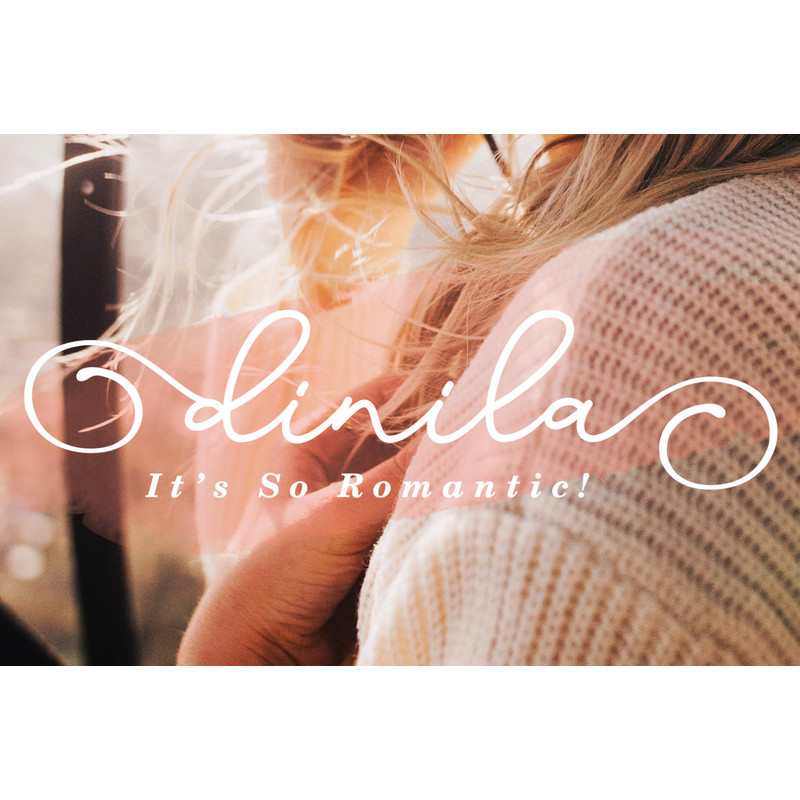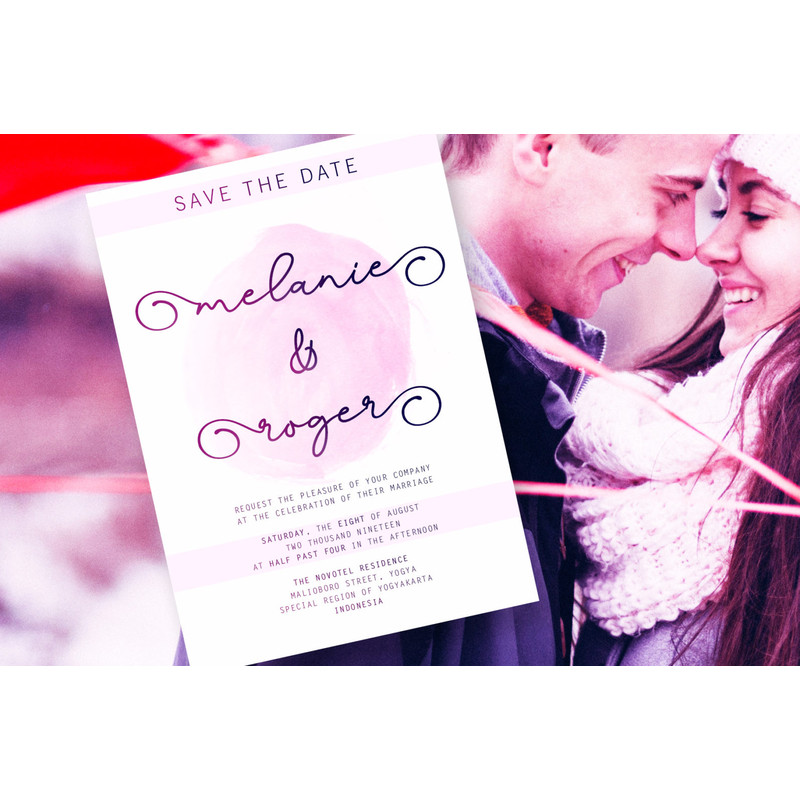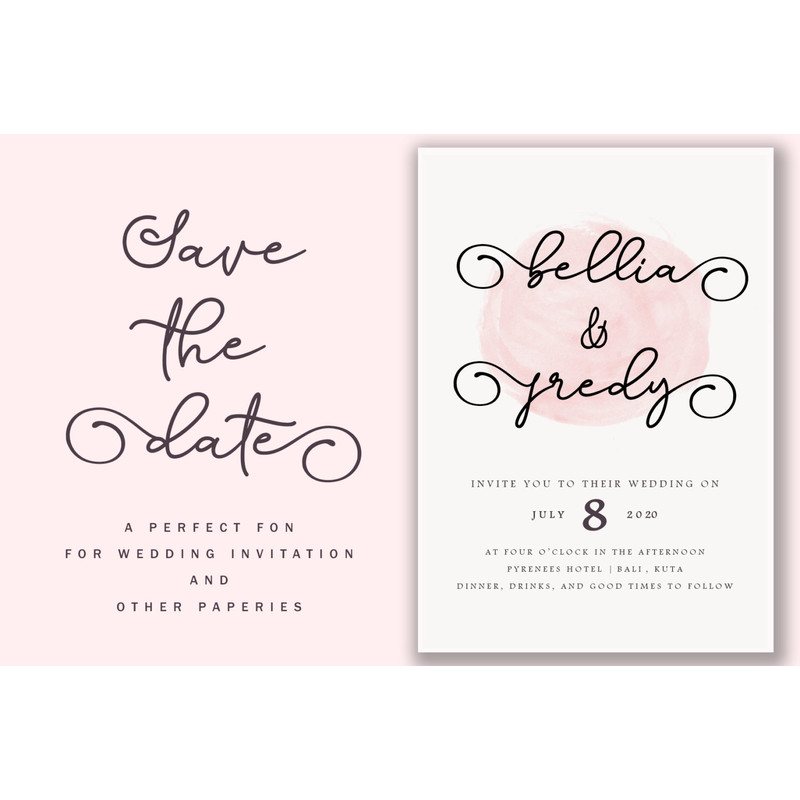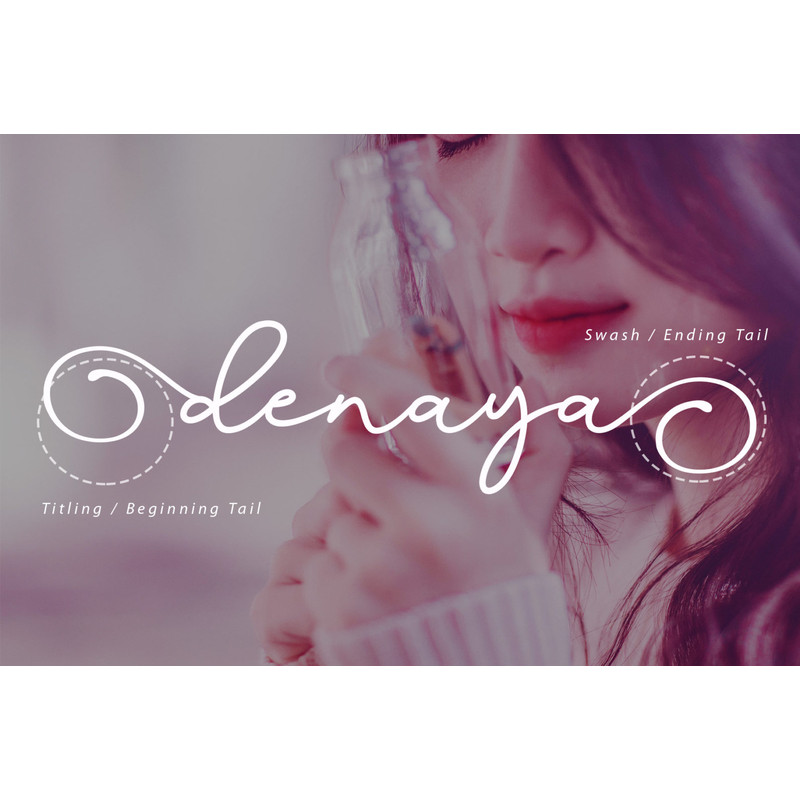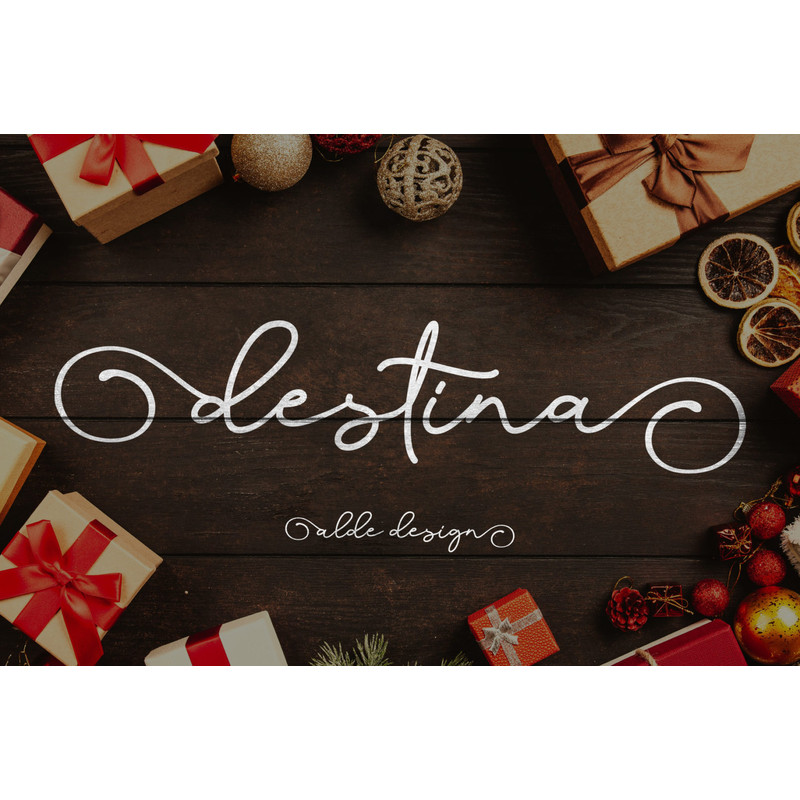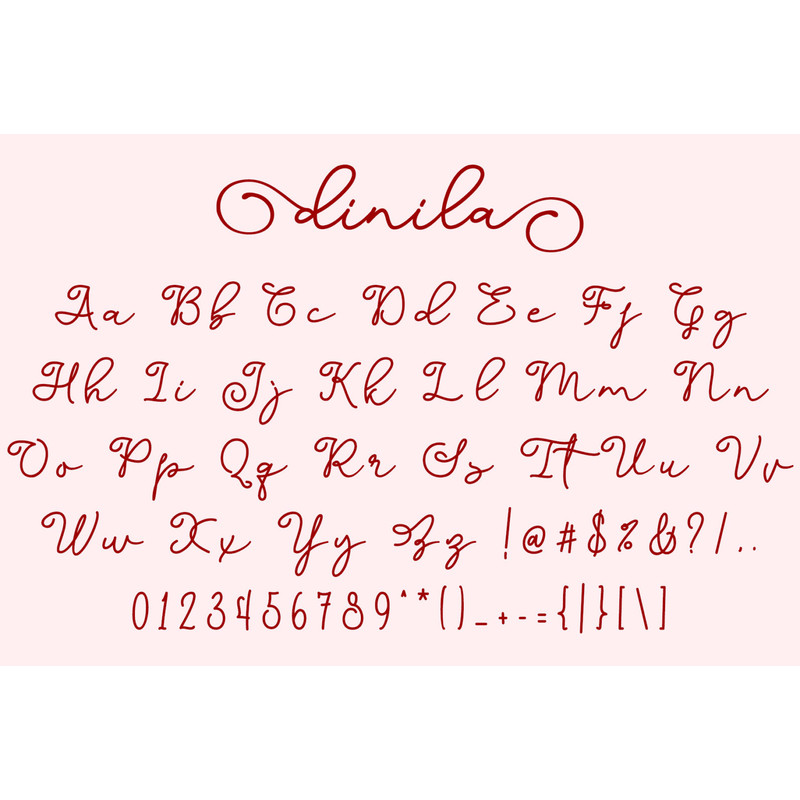
Dinila Script is a great font for any project! This font made with awesome and classy taste comes with a natural touch, so many ligatures. We keep this font looks classy, readable, elegant, stylish, catchy, and absolutely easy to use.
Dinila Script is a great choice for the watermark on branding, design, wedding, photography, signature, logo design, album cover, business card, quotes, and much another design project.
-Stylish handwritten style
-Ligatures, Swash (ending tail), and titling (beginning tail)